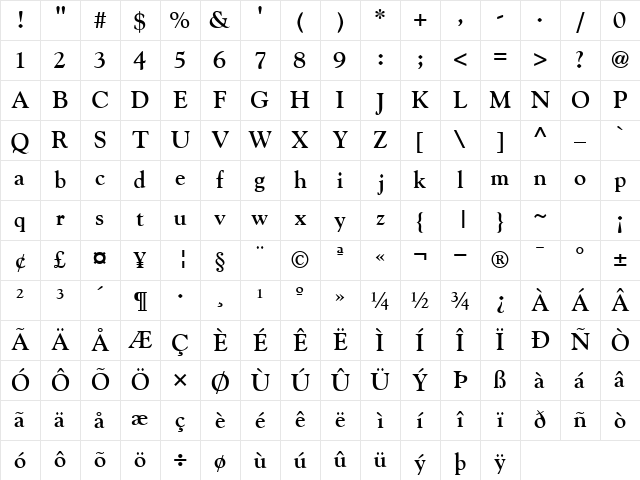
GoudySSK is a composed and adaptable typeface that performs quietly and consistently across a wide range of design contexts. Its bold stroke weight gives it real presence on the page.